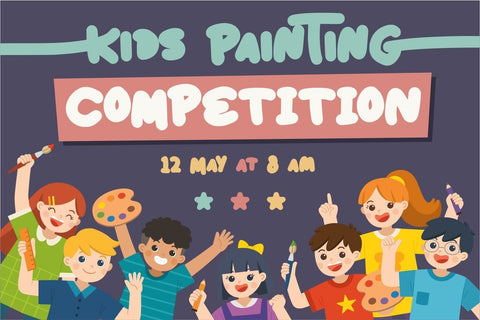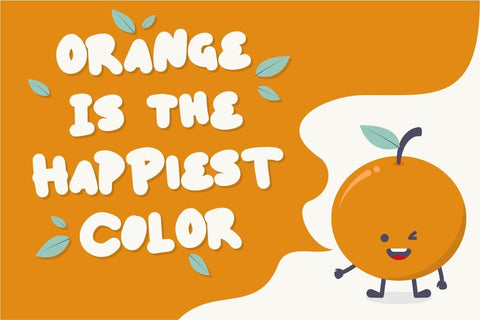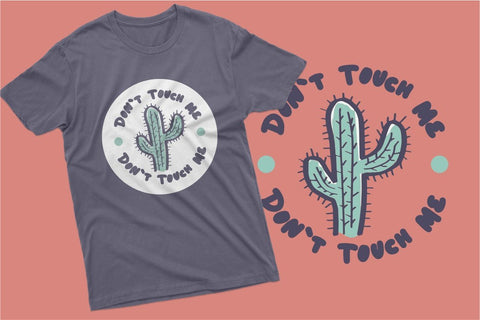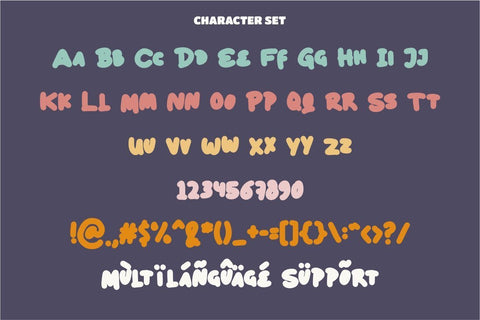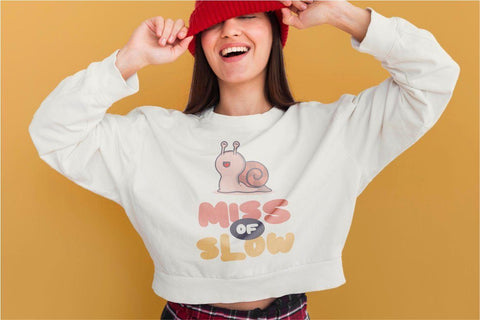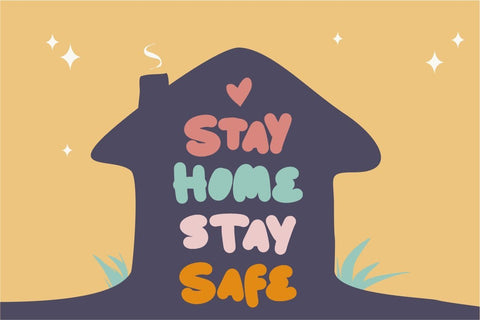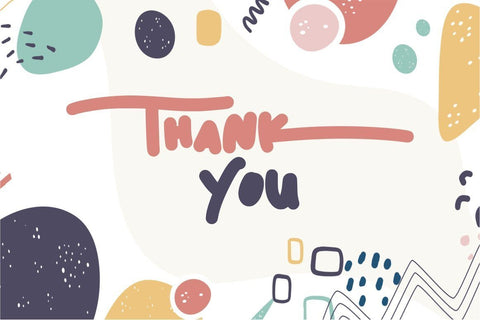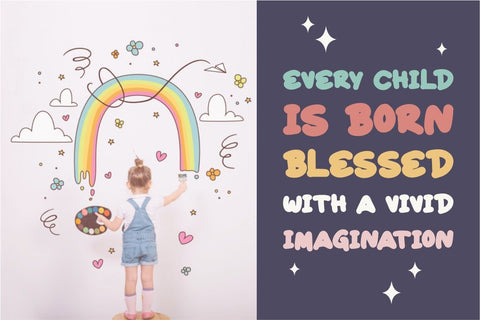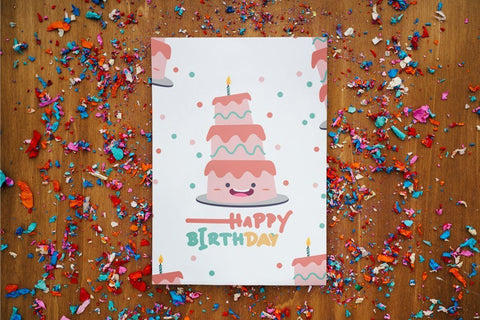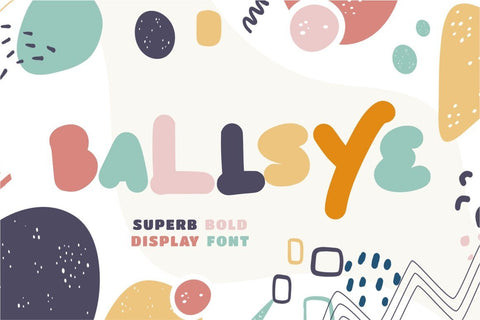
Ballsye - Superb Bold Display Font
Say Hello to Ballsye, a Superb bold display font. This font is a very bold font so it has a strong impression. But other than that, this font can also be a fun and playful font.
Ballsye is perfect for branding design, posters, apparel, for logotype, website header, fashion design and any more.
Come with Opentype feature with a lot of alternates, its help you to make great lettering. This font is also support multi language.